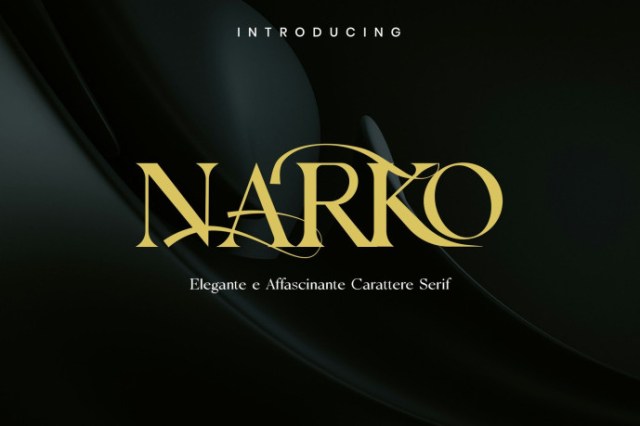
Narko – Elegant Serif Font
Designer: wealthwells
Narko – Elegant Serif Font is an elegant serif typeface designed to exude luxury, refinement, and artistic sophistication. With its graceful serifs, high-contrast strokes, and flowing swashes, Narko is ideal for projects that demand a touch of high fashion and grandeur. Perfect for branding, editorials, packaging, and luxury invitations, this font leaves a lasting impression with its confident yet graceful presence.